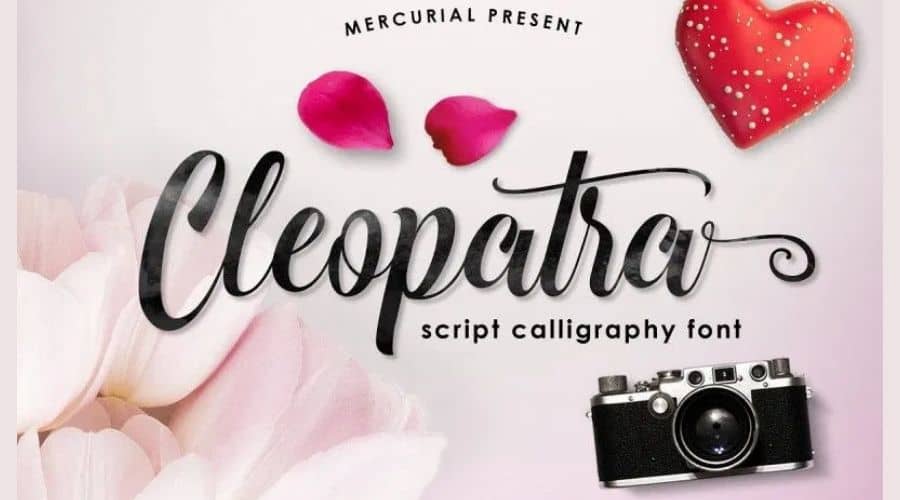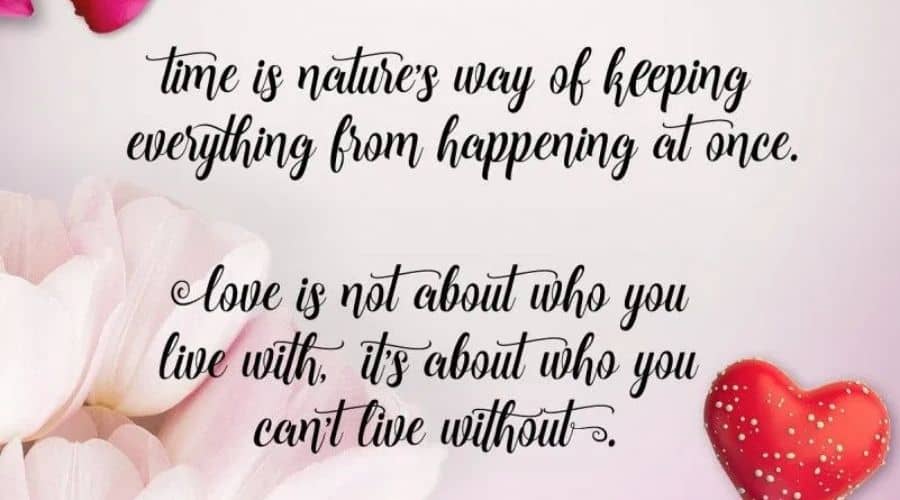
Cleopatra Script font
Hey there, font fanatics! Cleopatra Font is now available. This font is a calligraphy style that was created by hand. Cleopatra Script font was created and shared on December 28, 2019 by MERCURIAL.
As there are many luxurious letter links, the Cleopatra Script font is high on ligatures. It provides a good variety of aesthetic options for many alphabets! This font is a calligraphy script font with a sleek and unique style. The typography attracts attention because it is both elegant and fun! Cleopatra can be used in a variety of programs, including Microsoft Word, Corel Draw, Adobe Illustrator, and Adobe Photoshop.
Cleopatra Script font has some additional glyphs that might produce a much more fascinating font personality, and typeface is also good for creating logos, solicitations, greeting cards, citations, posters, and many others. You can make amazing design on mug with this font.
StyleScript, Calligraphy